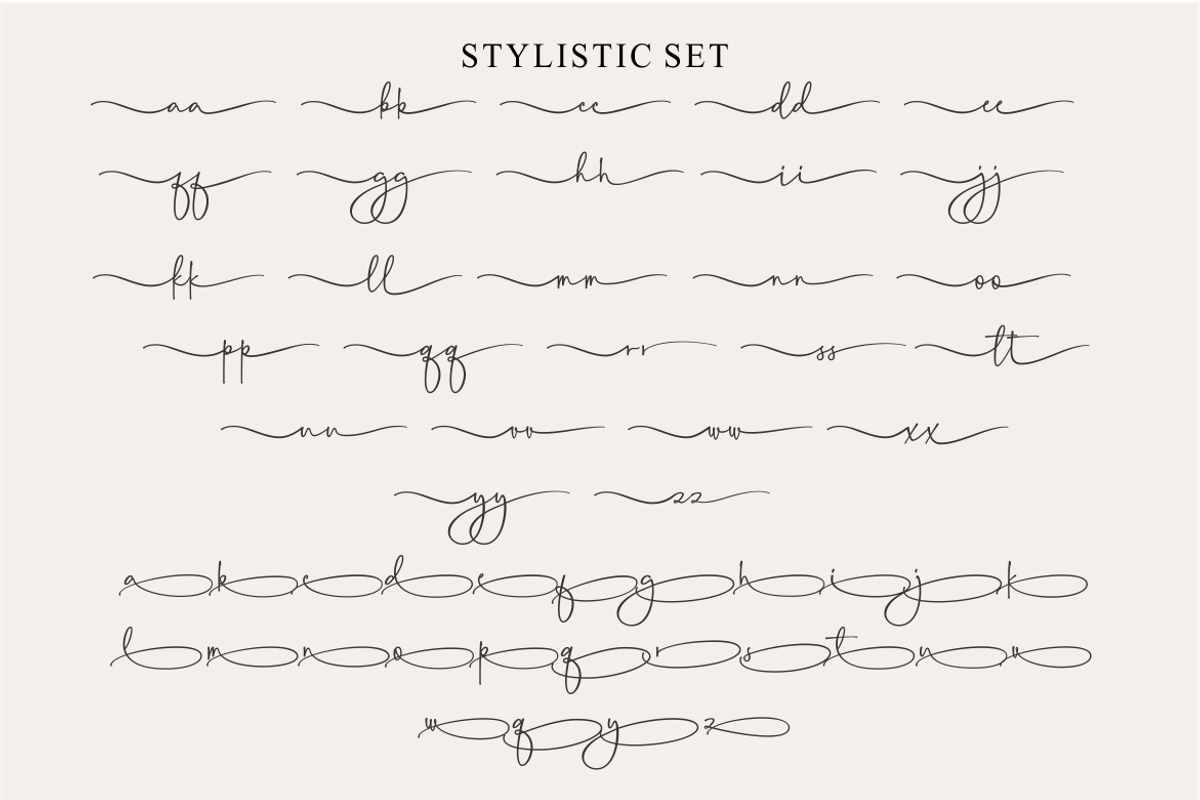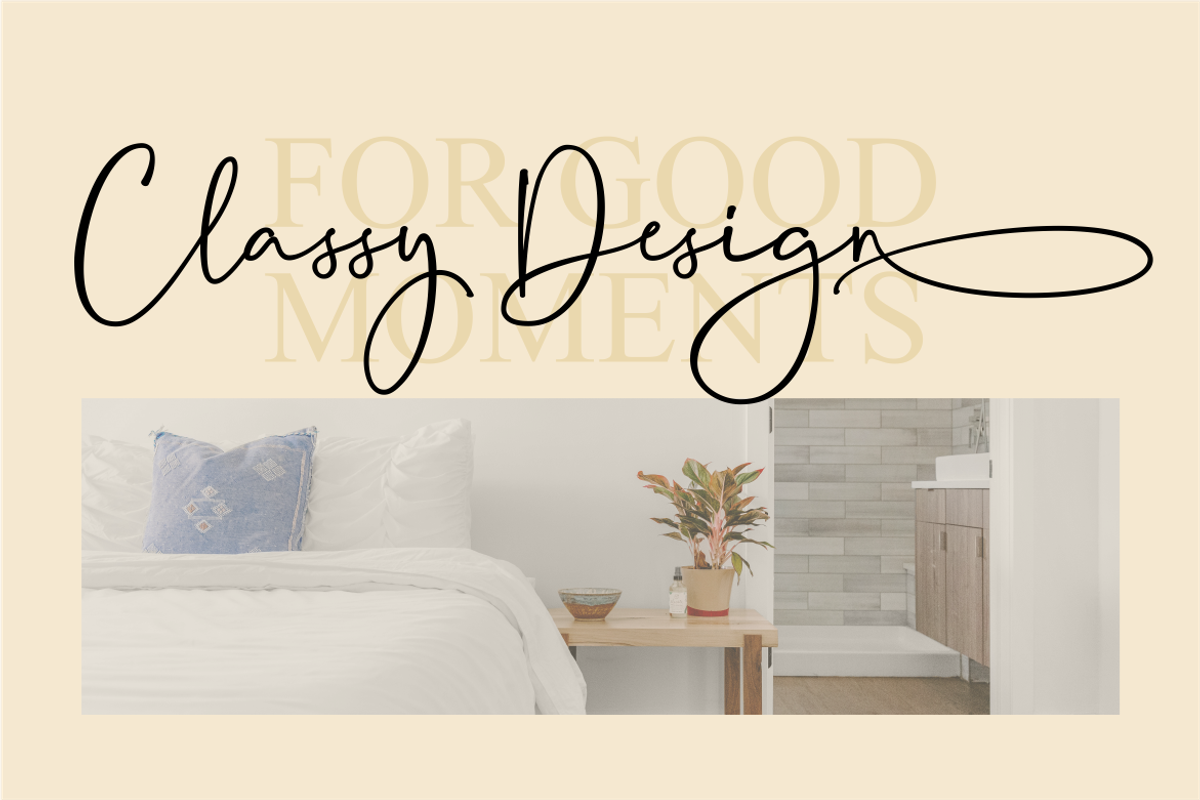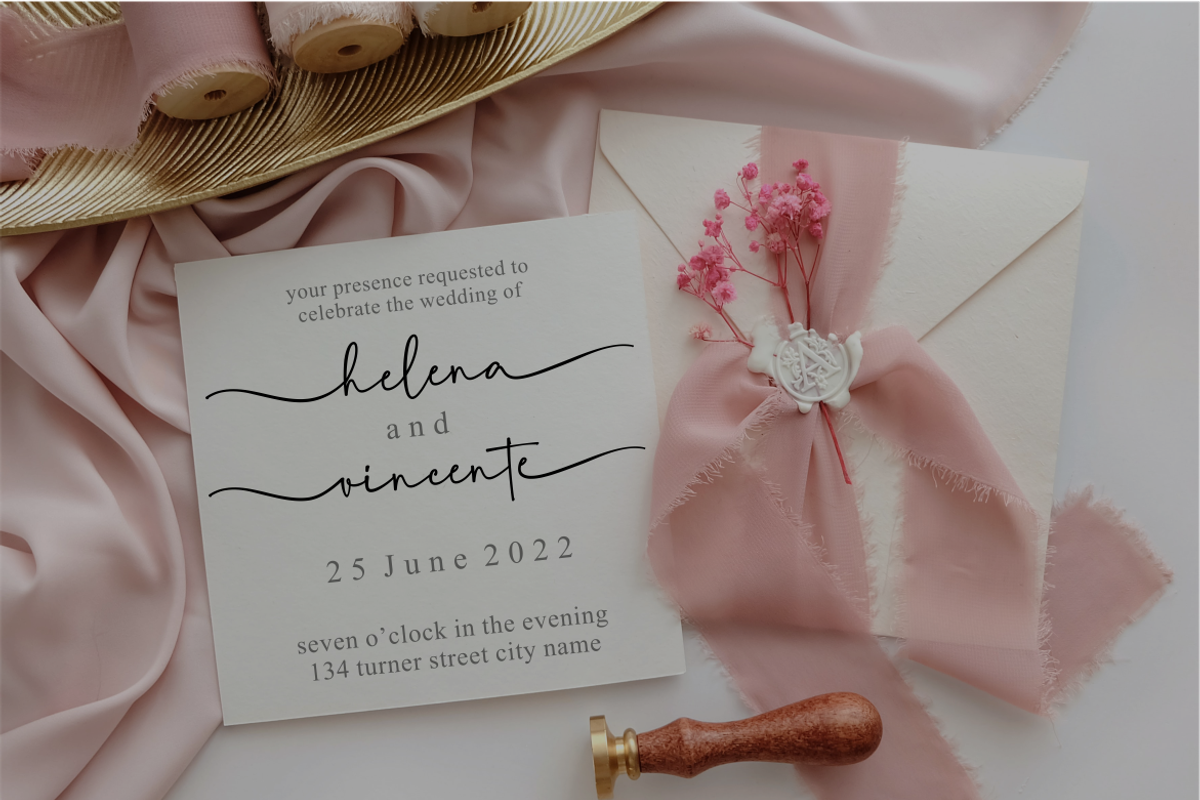
gratitude signature
gratitude is an organic handwritten font that is suitable for branding, signature, wedding invitation, promotion, product packaging, and other needs. This font is modern, simple, but still authentic. You will get full set of lowercase and uppercase letters, numerals and punctuation, multilingual symbols, lowercase beginning and ending swashes, ligatures and extra swashes.